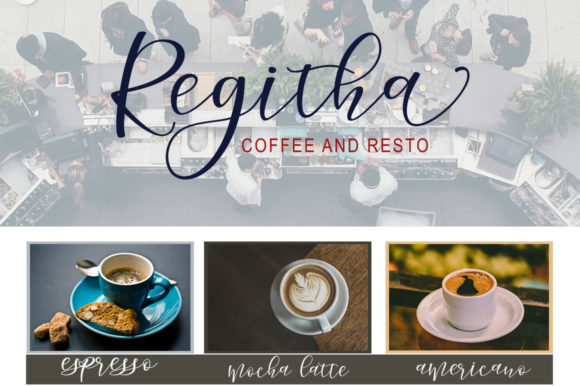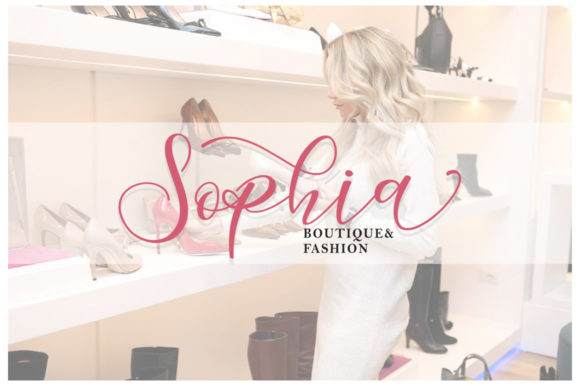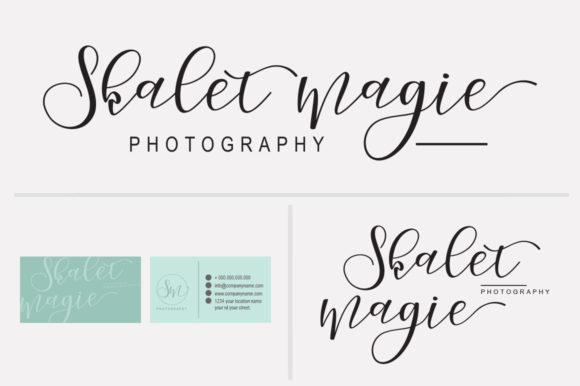
Introduction to Morelight Script Font
The Morelight is a modern calligraphy script.
It has an amazing handwritten touch with decorative characters and a dancing baseline It’s perfect for greeting cards, branding materials, business cards, quotes, posters, and more.